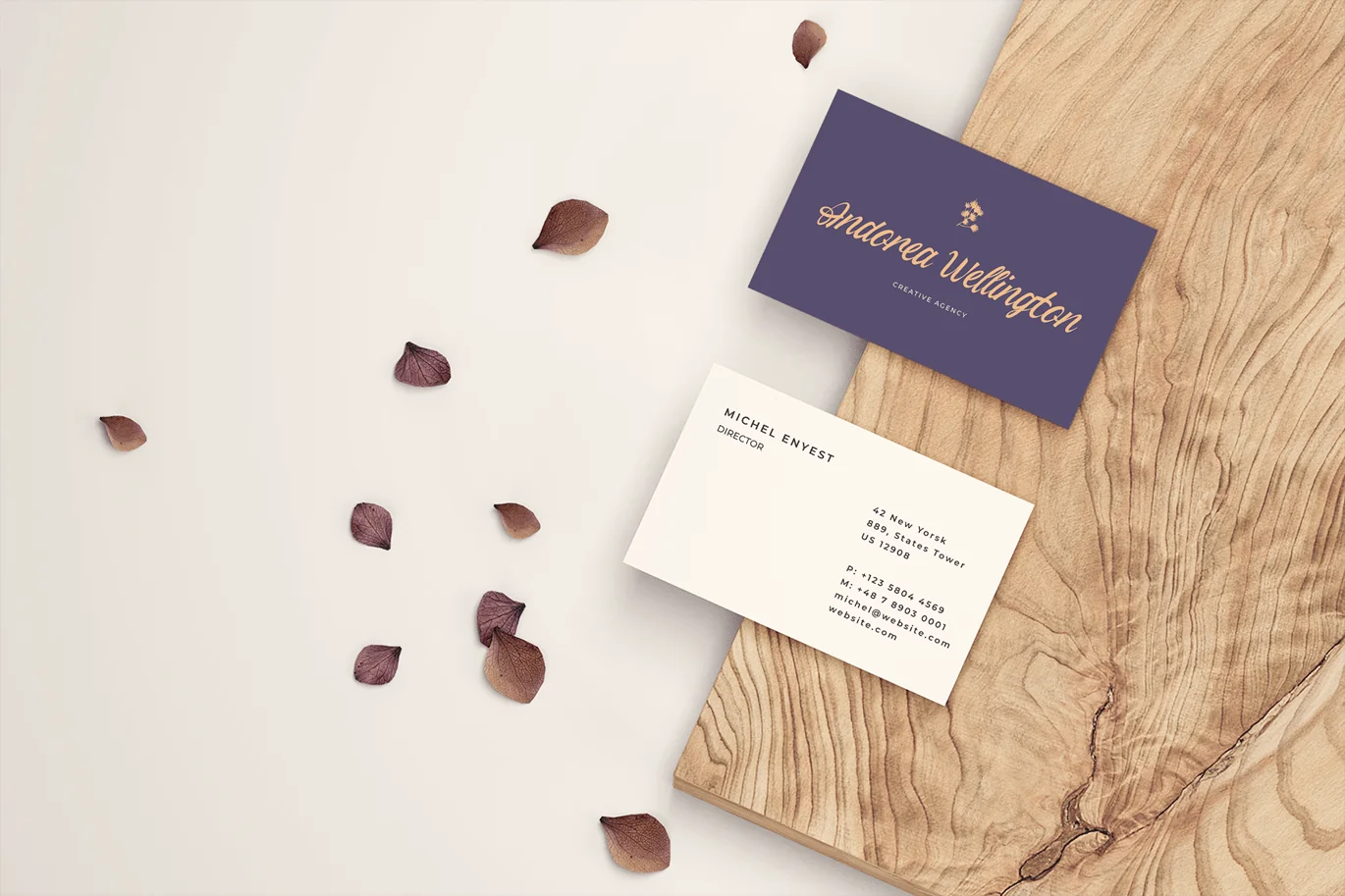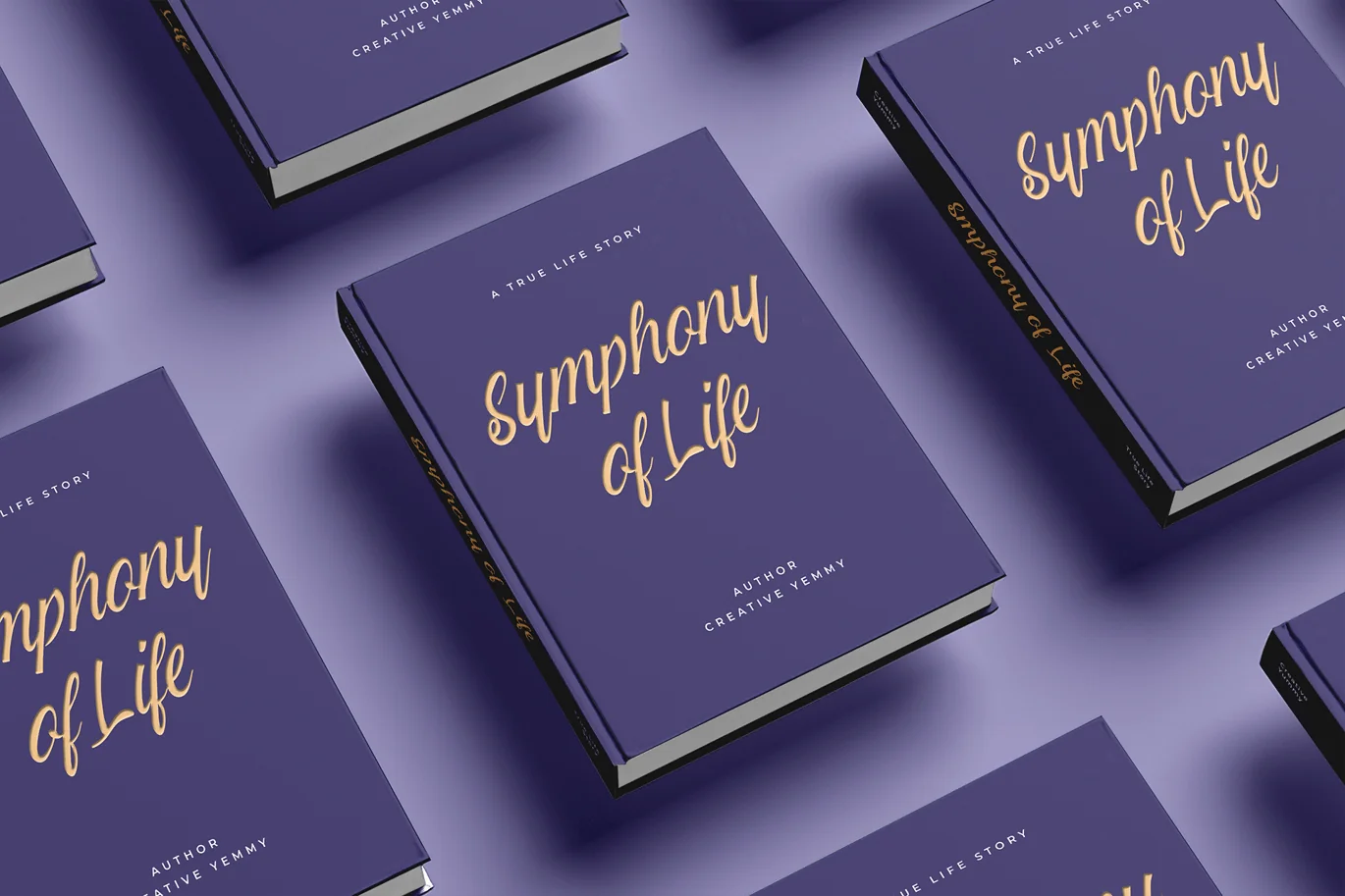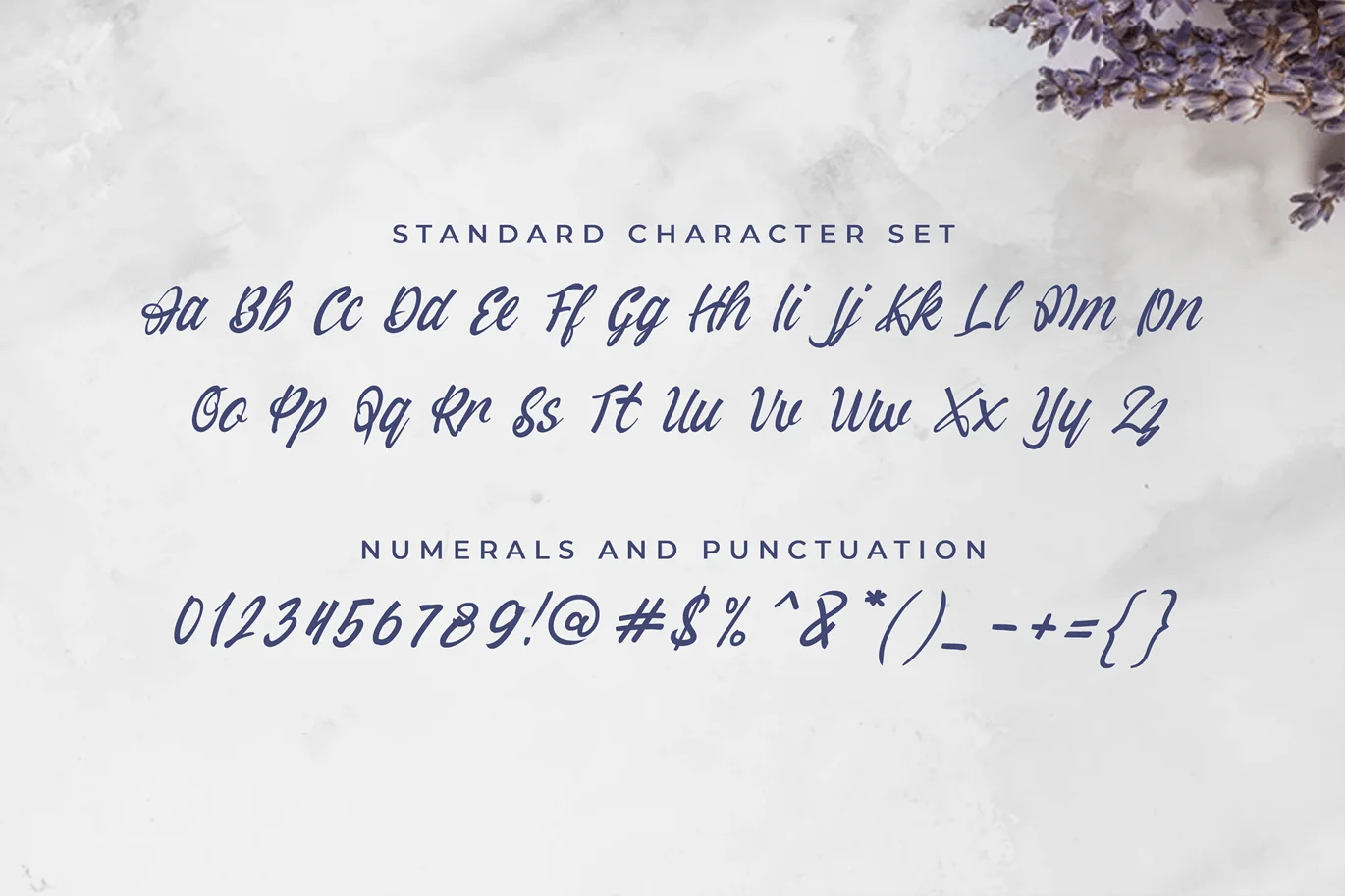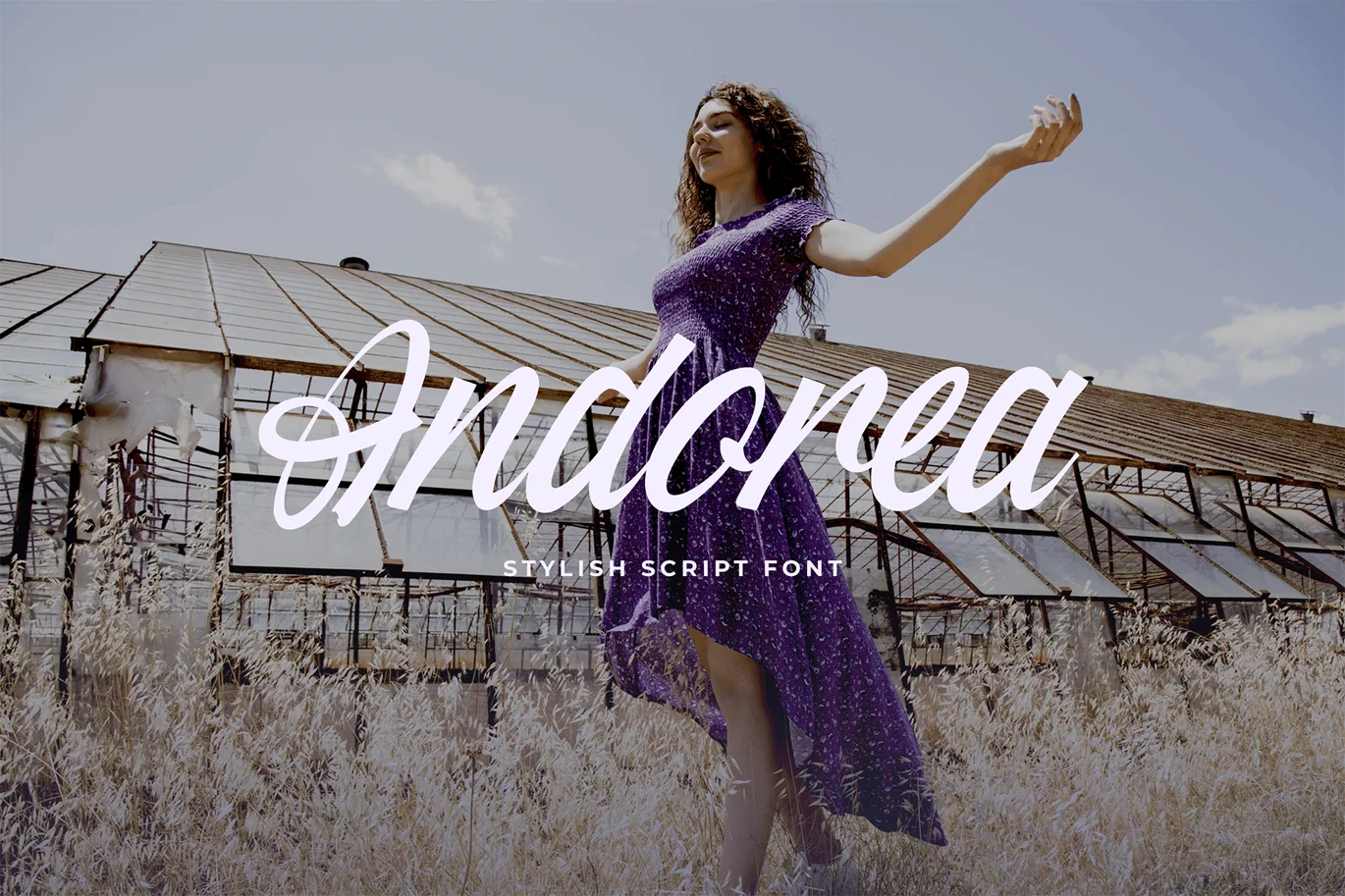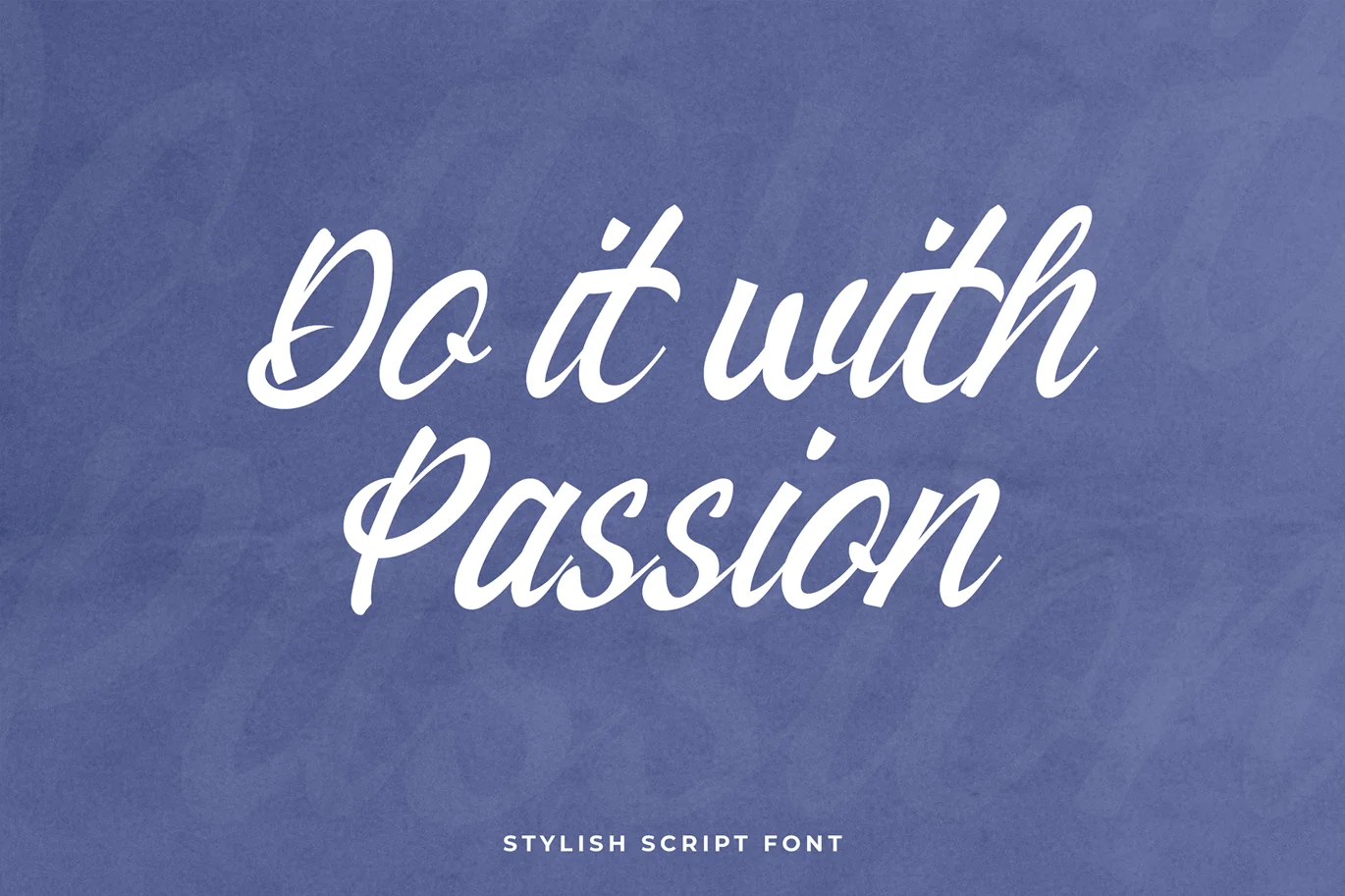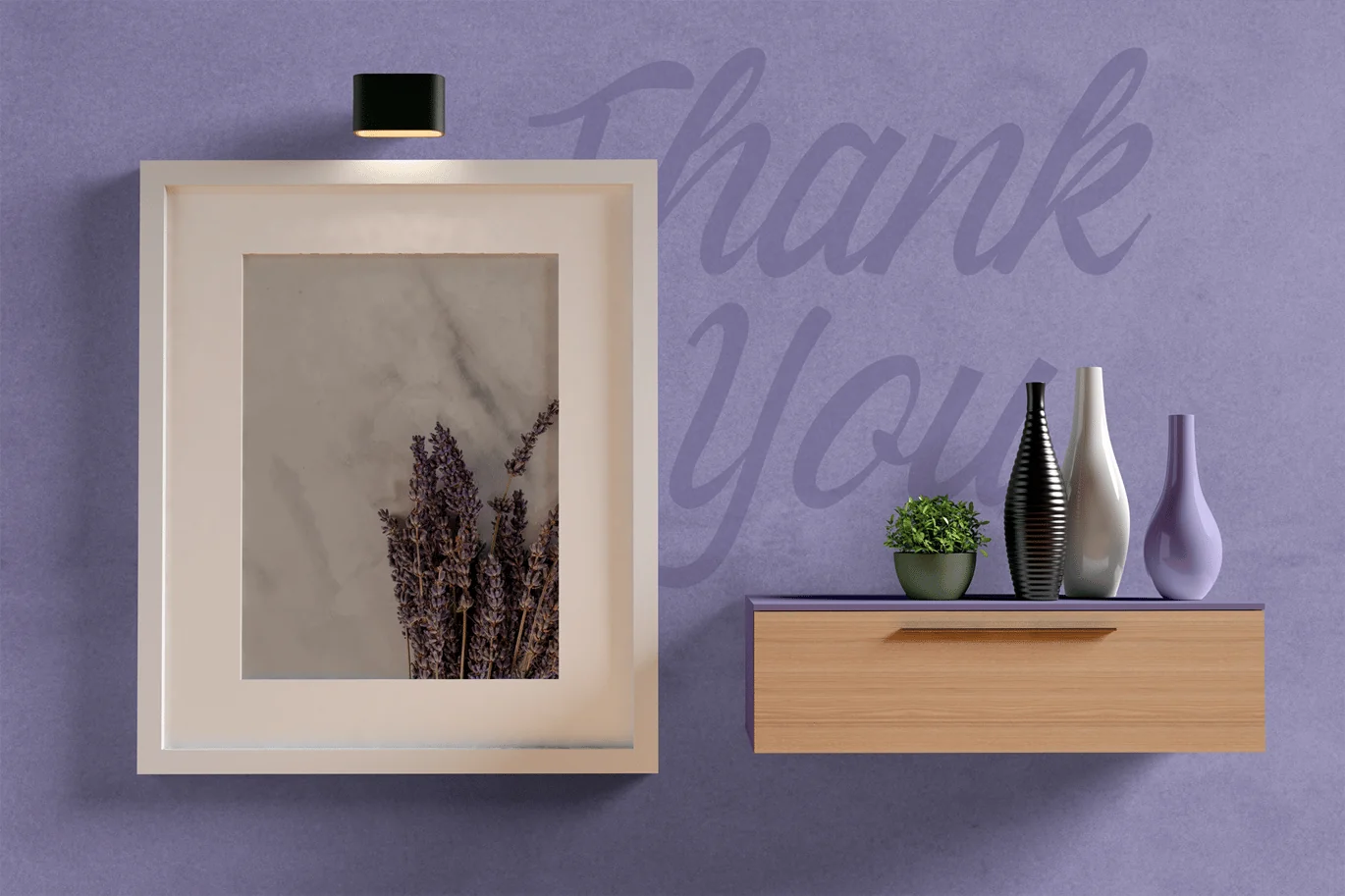
Andorea Handwrite Font
Andorea Stylish Script Font, is our new font and suitable for mockup or any work.
Great for
Sticker, Invitation Card, Brochure, etc.